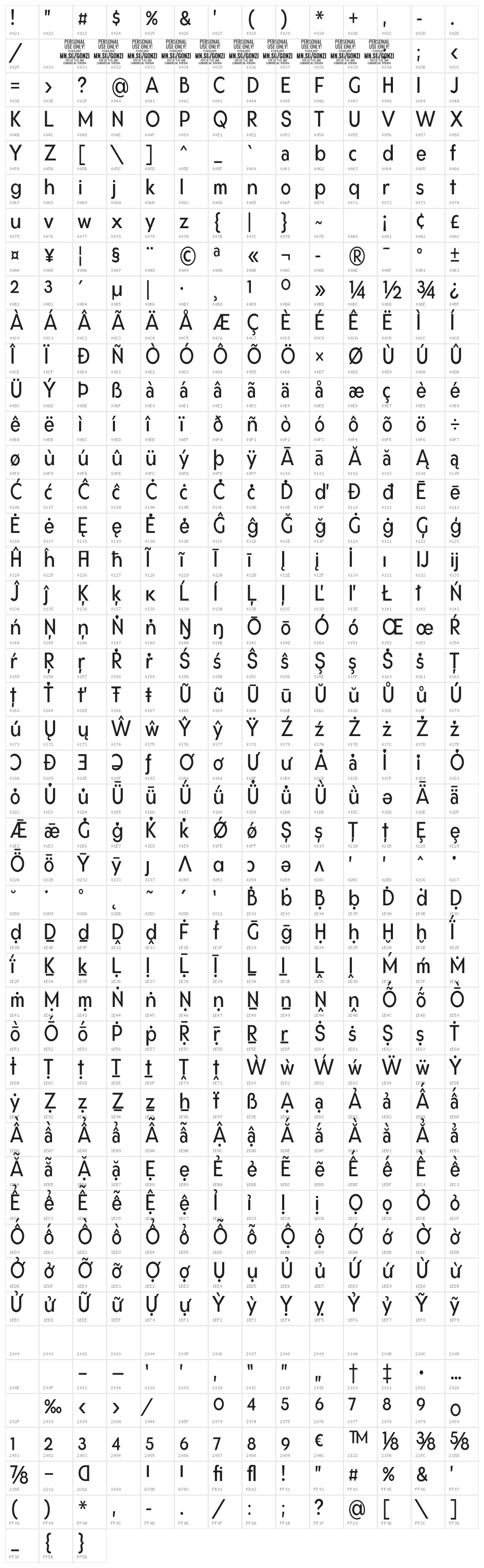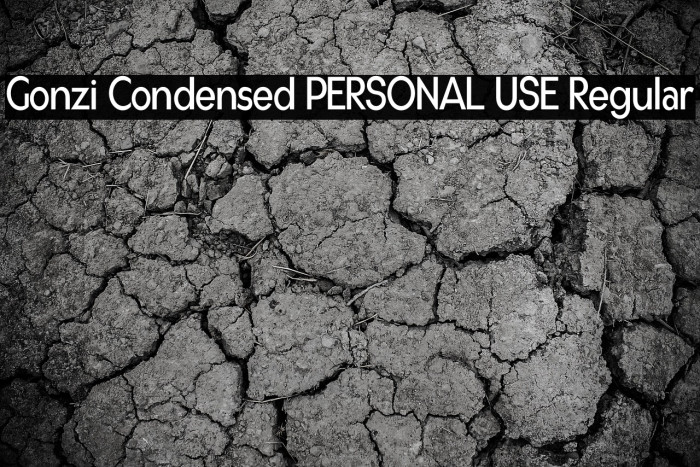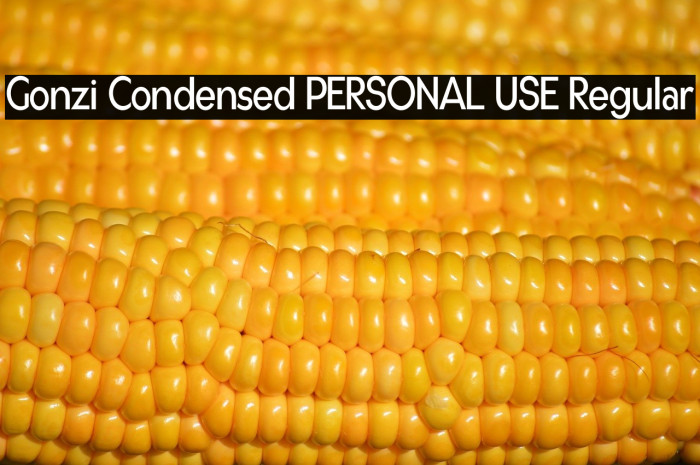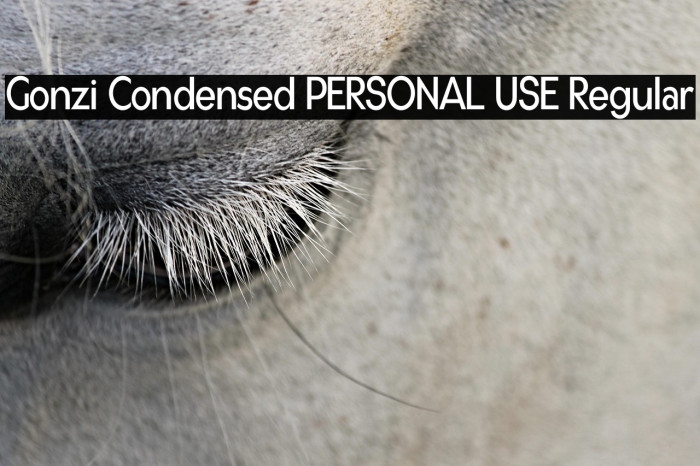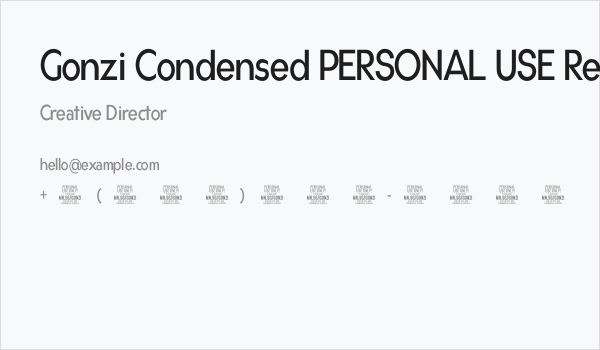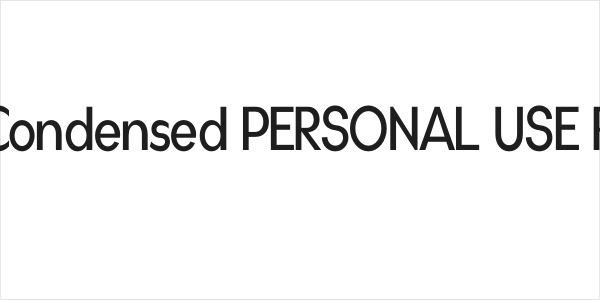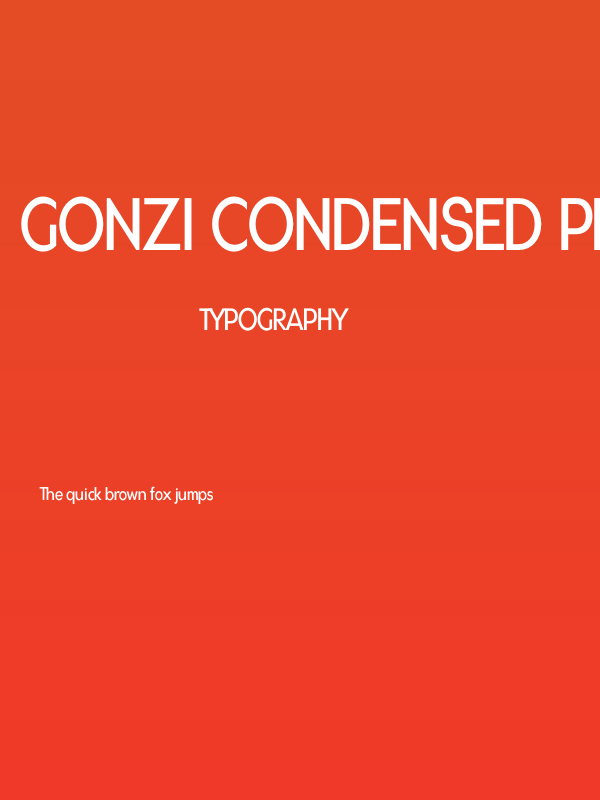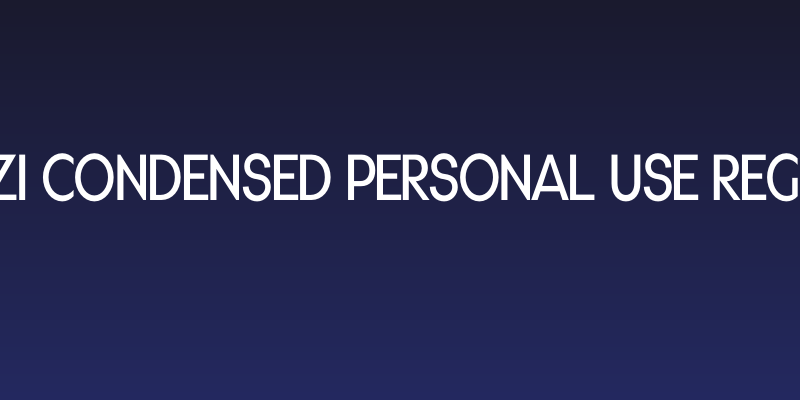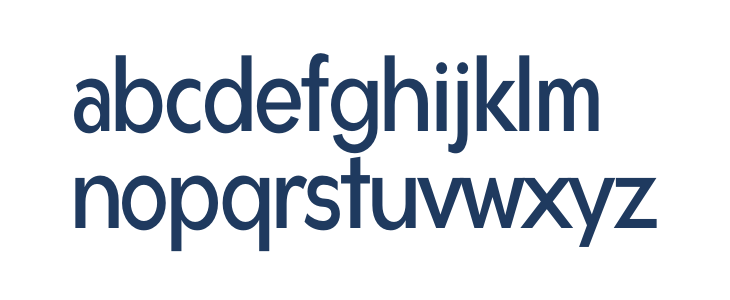
Gonzi Condensed PERSONAL USE Regular Font
Gonzi Condensed PERSONAL USE Regular Description
This font features a clean and modern sans-serif design with a condensed width, making it ideal for space-saving applications. The characters are bold and uniform, providing excellent readability and a strong visual impact. The uppercase and lowercase letters are well-proportioned, with consistent stroke widths that contribute to a cohesive appearance. The numerals and special characters maintain the same design principles, ensuring a harmonious look across all text elements. This font's simplicity and clarity make it versatile for various design needs.